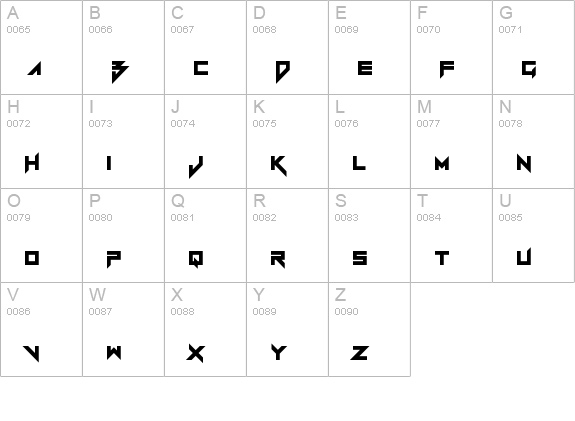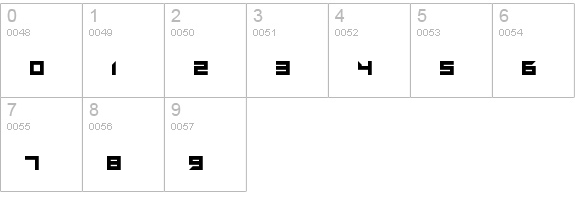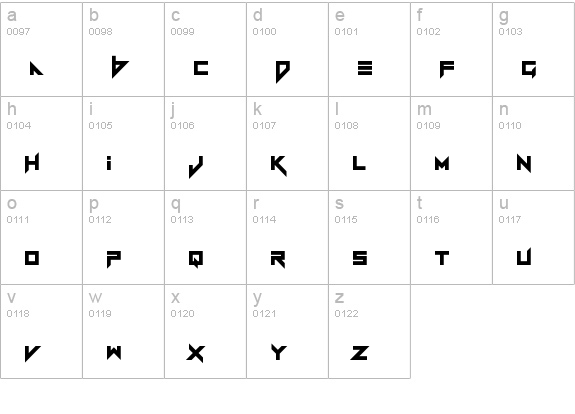
Vermin Vibes Redux Regular Font Details
Vermin Vibes Redux Regular is the standard, neutral variant in the Vermin typeface family \xE2\x80\x94 well suited to general body text, paragraphs, and standard typographic work.
Vermin Vibes Redux Regular font is a versatile and modern typeface that exudes a sleek and edgy vibe. Its clean lines and sharp edges give off a sense of sophistication and professionalism, making it perfect for a wide range of design projects. This font is ideal for branding, logos, headlines, posters, and more. One of the best things about Vermin Vibes Redux Regular font is that it is completely free to download. You can easily access this stylish font at FontsMarket.com without any cost, making it a great choice for budget-conscious designers and creatives. Whether you're working on a personal project or a commercial venture, this font offers a high-quality and stylish option that won't break the bank. With its bold and striking appearance, Vermin Vibes Redux Regular font is sure to make a statement in your designs. Its modern aesthetic and attention-grabbing style will help elevate your projects and draw attention to your message. Download this font for free today at FontsMarket.com and add a touch of sophistication to your designs.